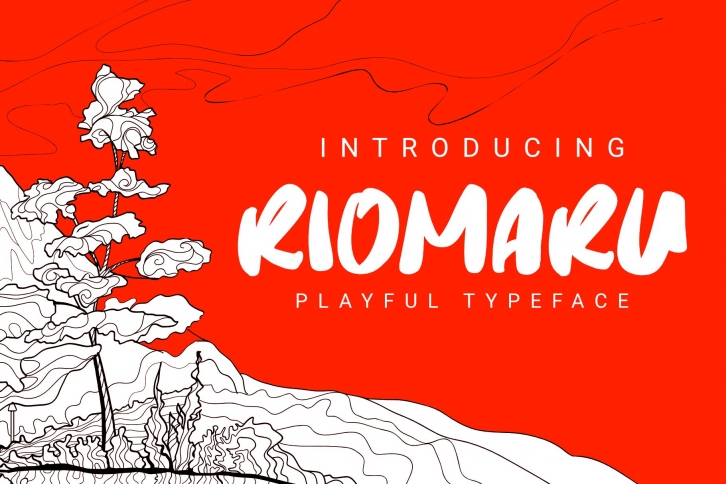
Riomaru is a trendy and unique font with an authentic style. It was designed by Dumadistyle and it's a great choice for creative people who need such a font. It was released on May 30, 2021 and the file size is 10.39 MB. Riomaru will add an organic vibe to any design idea!